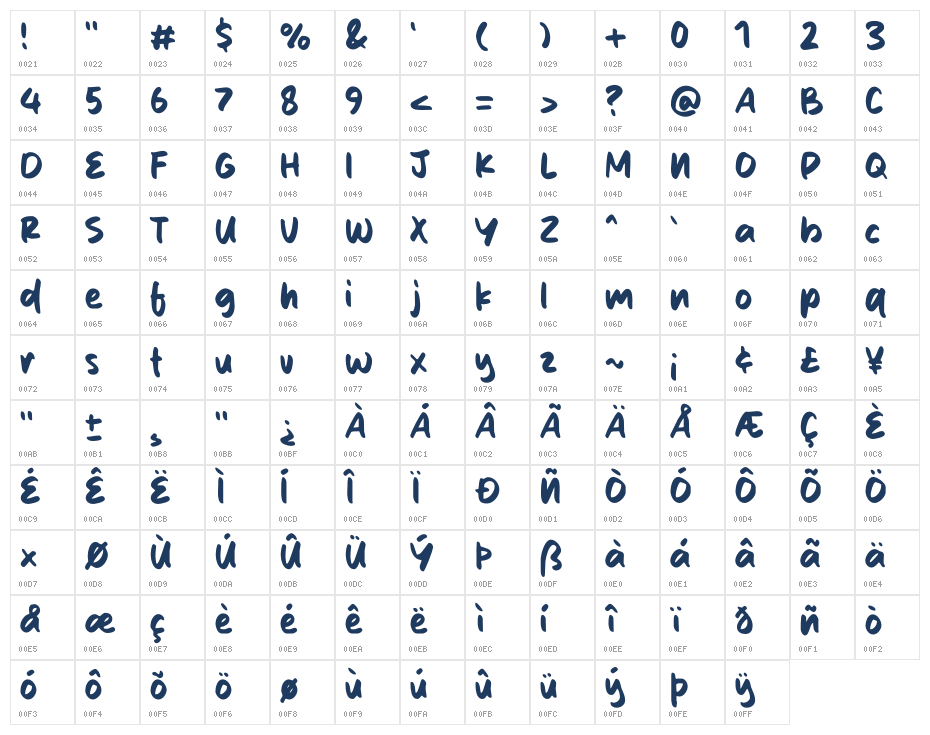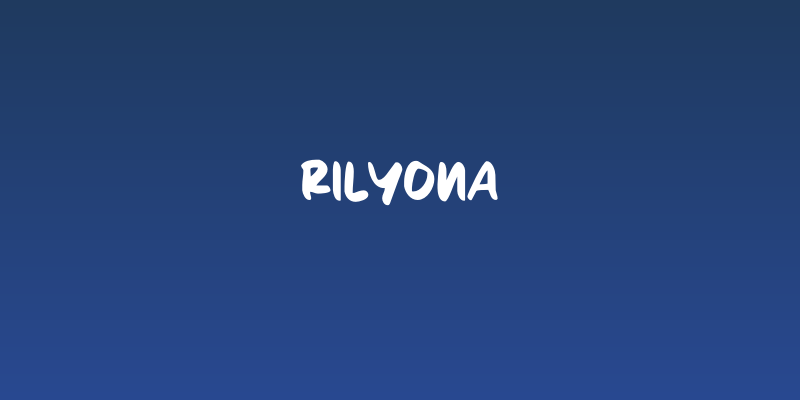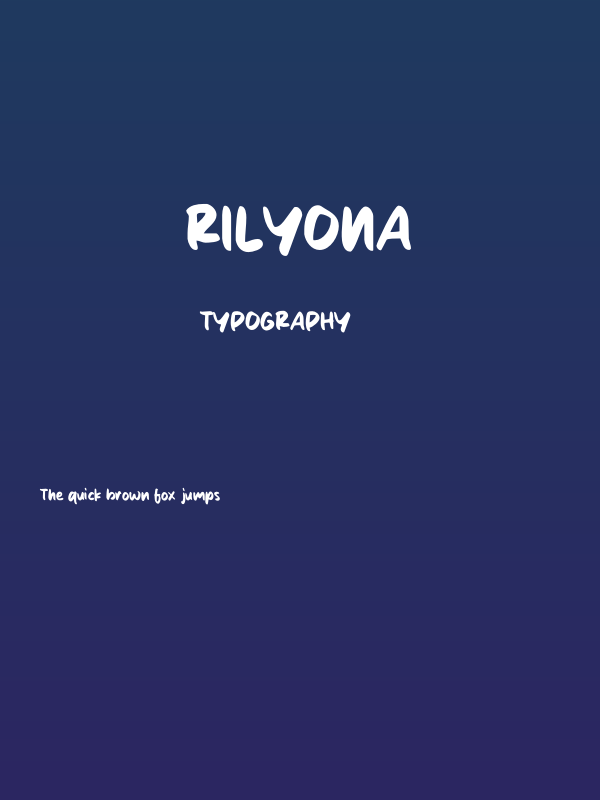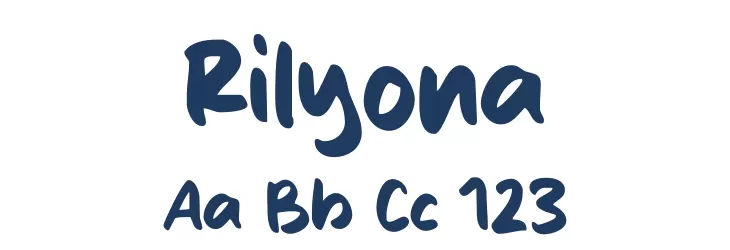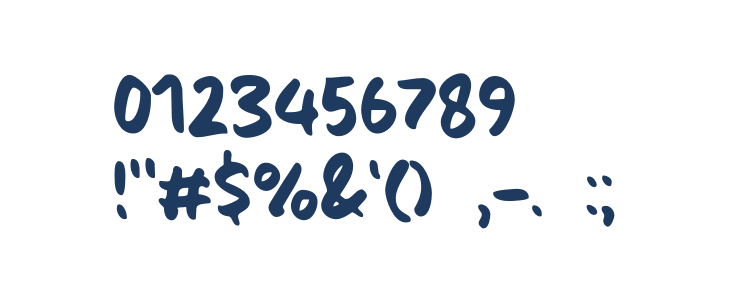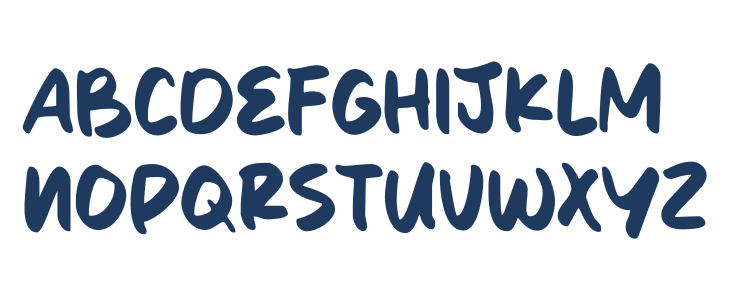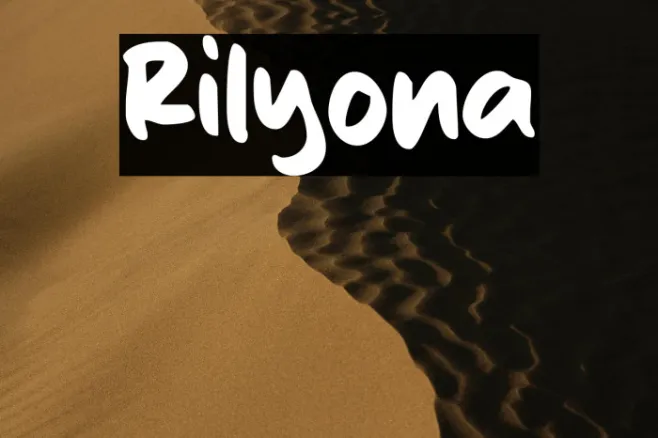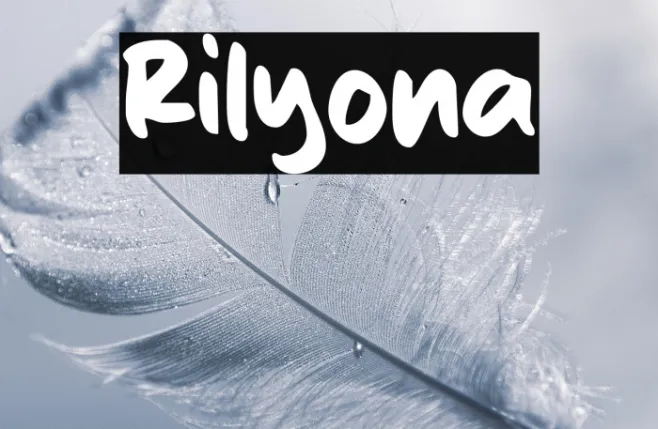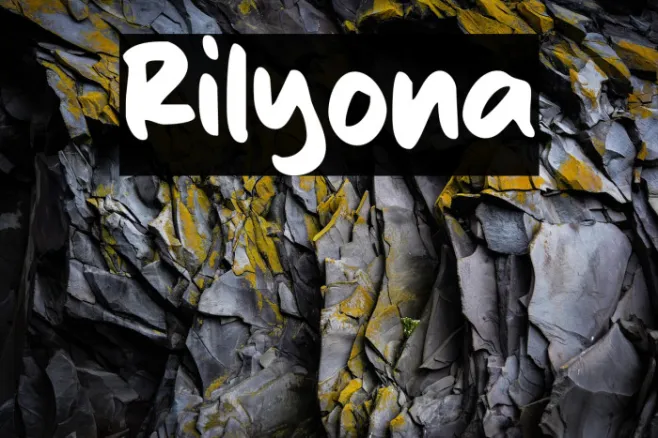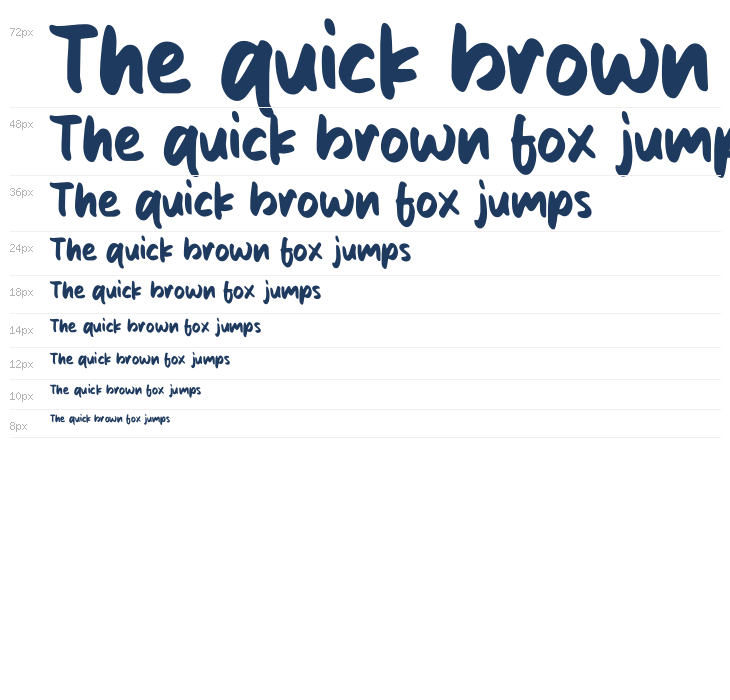
Rilyona Font
Rilyona Description
A bold, playful, handwritten style font with rounded edges and a casual appearance.
Rilyona
| Use Case | Headlines, Posters, Children's products, Informal branding |